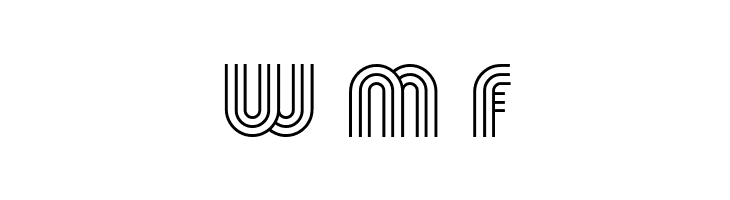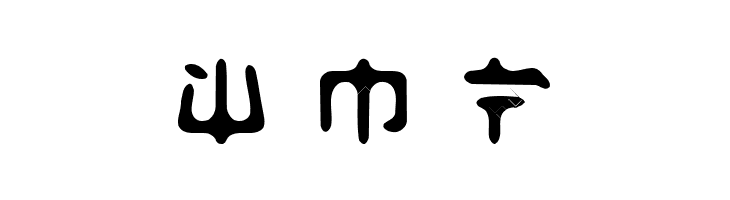
( Tami Vu - thepinksushi.com )
A playful, hand-drawn font with tall, narrow characters and a whimsical style.
( Jos Tan - notes.jos.net.au )
A pixelated, monospaced font with a retro digital aesthetic.
( Jos Tan - notes.jos.net.au )
A pixelated, retro-style font with a digital, blocky appearance.
( 010Bus )
A pixelated, monospaced typeface with a retro digital aesthetic.
A sleek, modern font with geometric and minimalist design.
A futuristic, geometric font with a sleek and modern design.
A bold, oblique font with a modern, futuristic style.
A playful, wavy font with a unique and quirky style.
A sleek, futuristic oblique font with geometric precision and clean lines.
A playful and quirky font with rotated, irregular characters.
( LadyTimeless - graphxgonewild.com/ )
A collection of geometric shapes with a striped, slatted design.
A playful, hand-drawn font with looped, doodle-like characters.
( Fonts by Tom Oetken - Ash Pikachu Font )
A digital display font with a classic 7-segment style, evoking retro tech aesthetics.
A segmented, digital display-inspired font with a geometric and mechanical style.
( Brynda1231 Industries )
A geometric, 7-segment display-inspired font with a technical and futuristic style.
( Christian Munk - fontstruct.com/fontstructors/25776/cmunk )
A pixelated serif font with a retro digital style.
( Gulash - www.czcionki.com/gulash.html )
A bold, jagged, hand-drawn font with a rugged, three-dimensional effect.
( Fonts by Galdino Otten Fonts )
Retro multi-line decorative font with a 70s disco feel.
( n )
A bold, decorative font with geometric and tribal elements.
( Fonts by Rodrigo German - RASDESIGN )
A bold, outlined font with geometric structure and modern appeal.
( Fonts by Rodrigo German - RASDESIGN )
A bold, block-like font with a vintage athletic feel.
( Fonts by www.fenotype.com )
A bold, geometric font with a retro, layered line design.
( Fonts by www.philing.net )
A segmented, digital-style font resembling an LED display.
( Fonts by www.philing.net )
A digital display-inspired font with a segmented, italicized style.
( 010Bus )
A pixelated, blocky font with a retro digital aesthetic.
( 010Bus )
A pixelated, retro-style font with a bold, blocky appearance.
( 010Bus )
A pixelated, blocky font with a retro digital style.